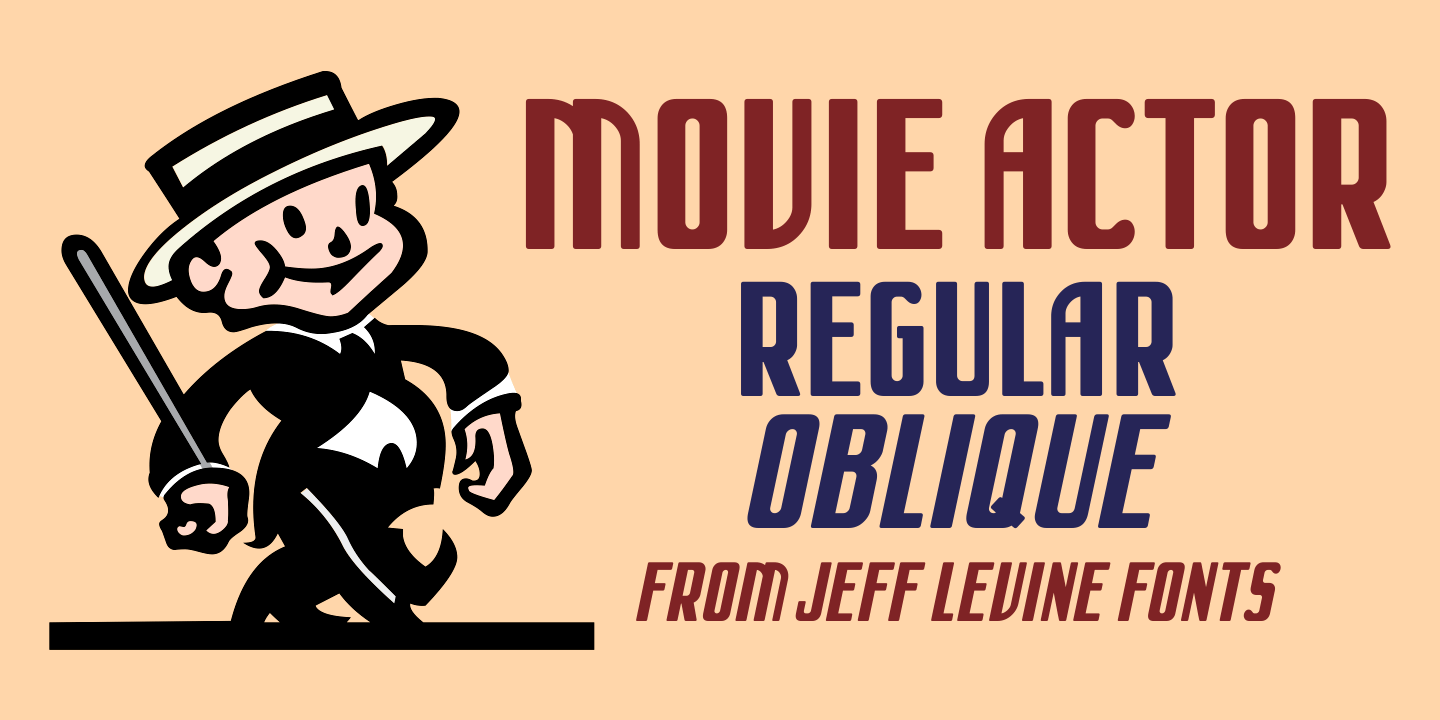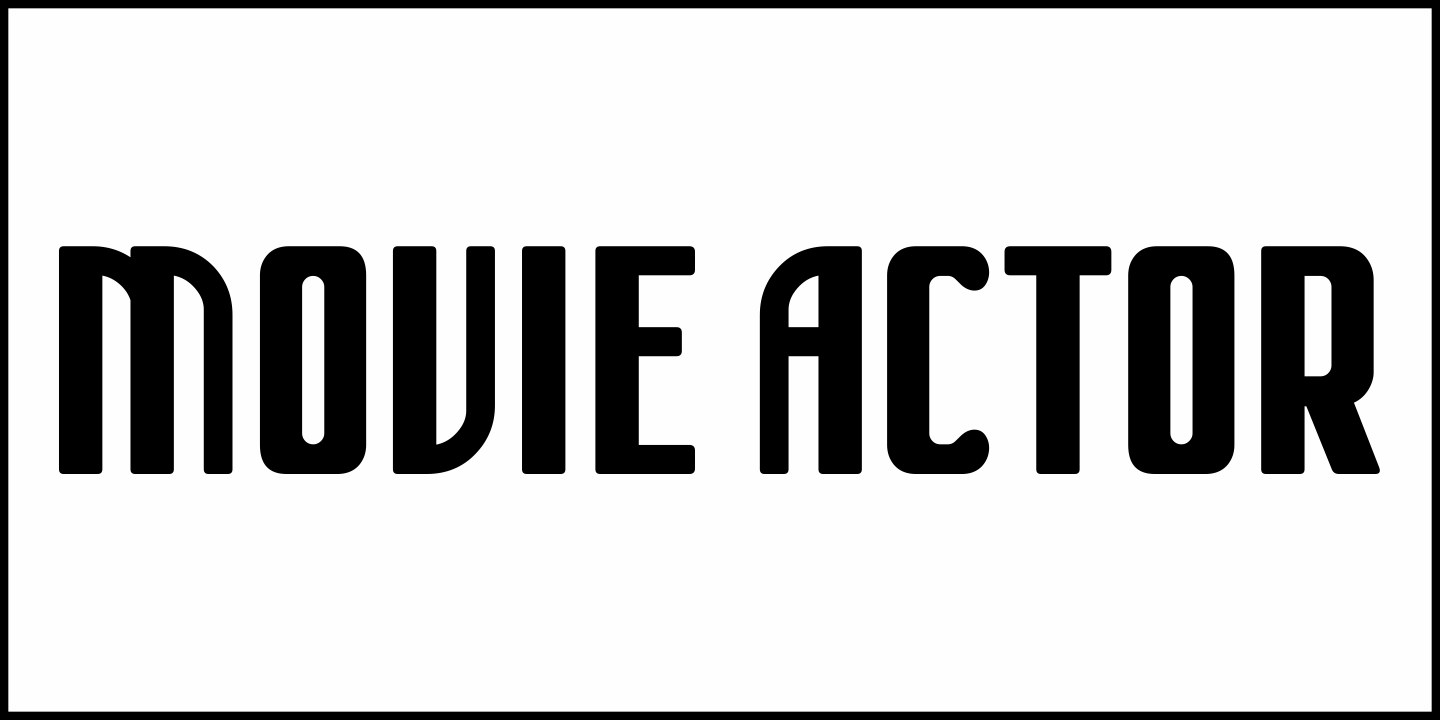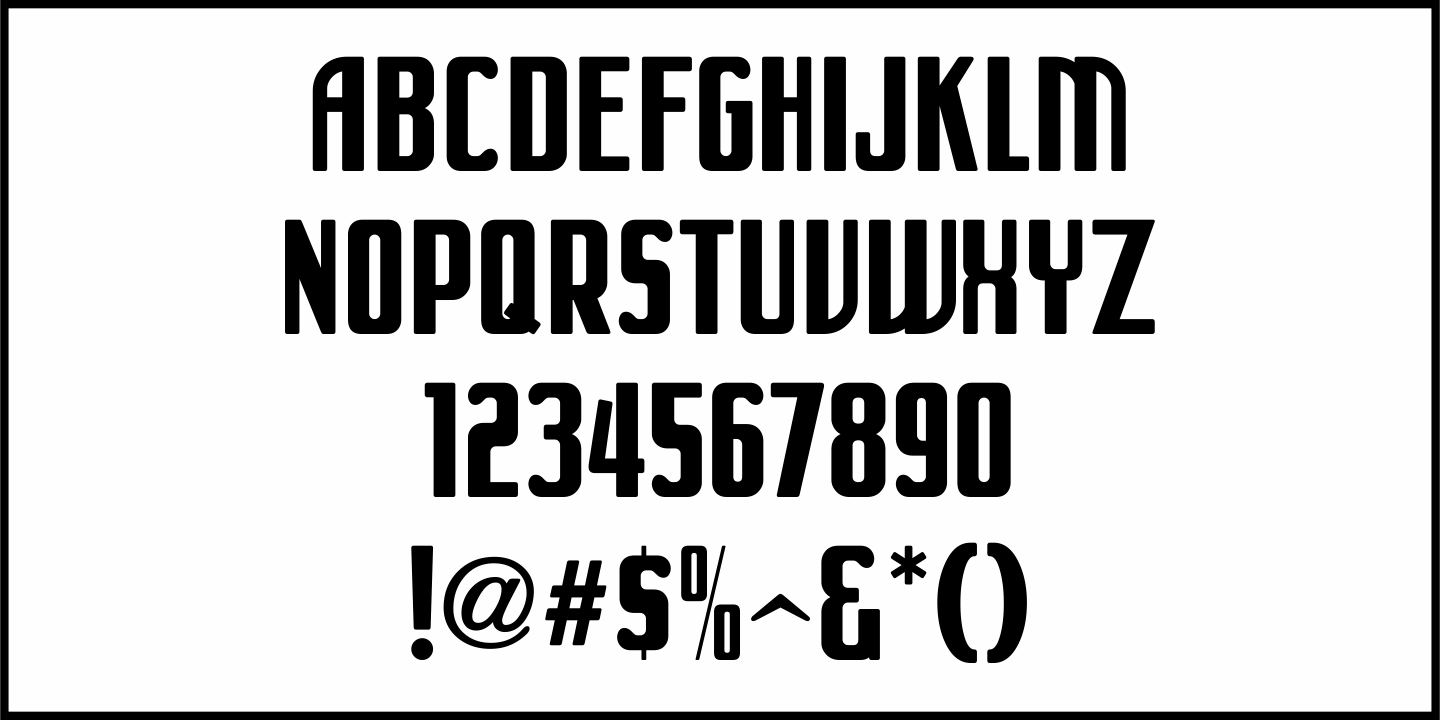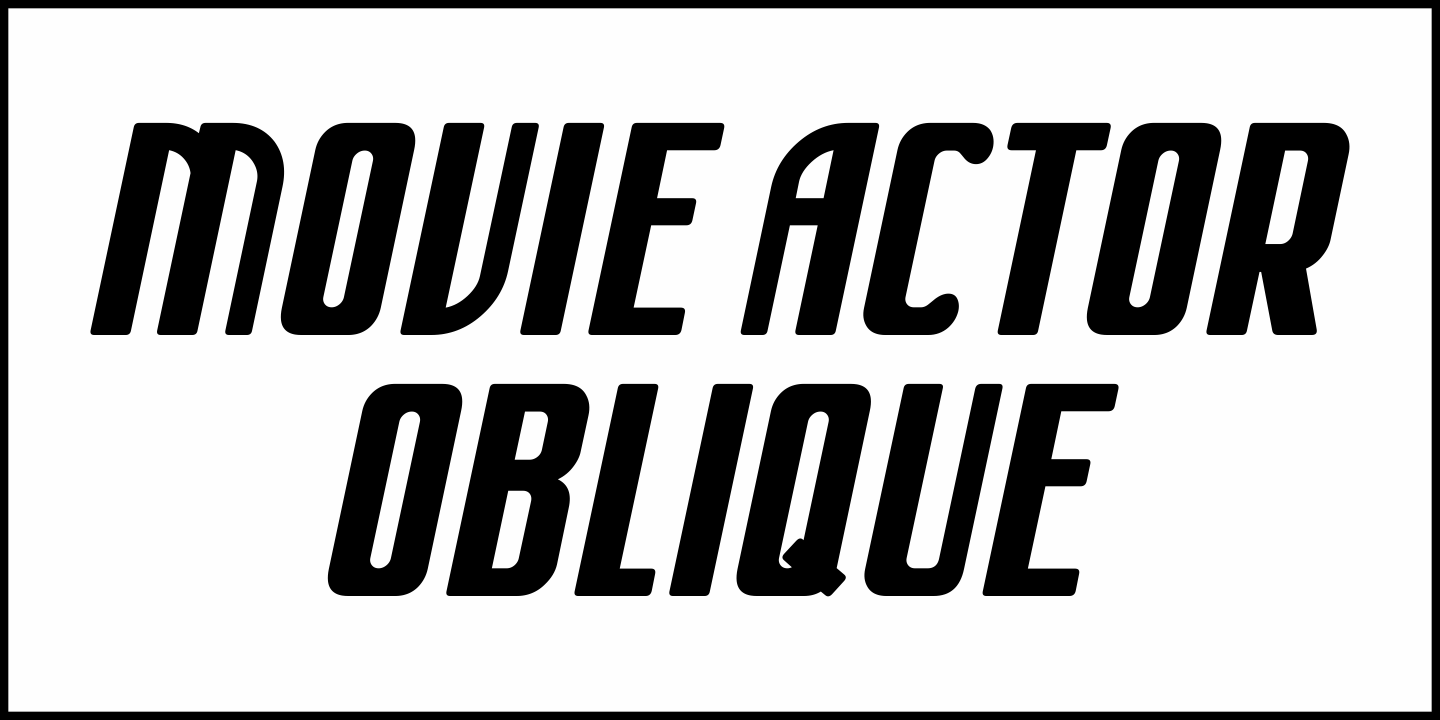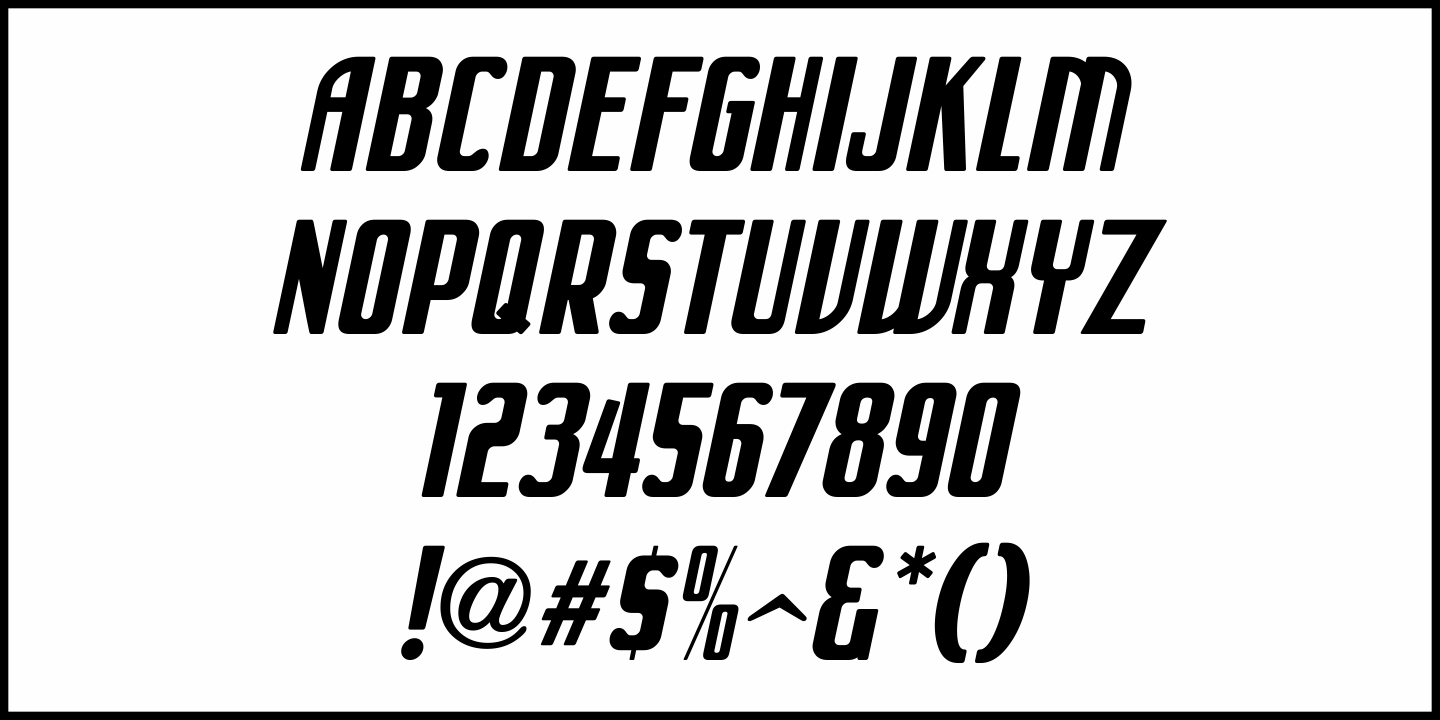
Movie Actor
The movie poster for the 1918 film "He Comes Up Smiling" - a mostly lost comedy film starring Douglas Fairbanks (only fragments survive)
features condensed Art Nouveau lettering with rounded corners.
This is now available digitally as Movie Actor JNL in both regular and oblique versions.